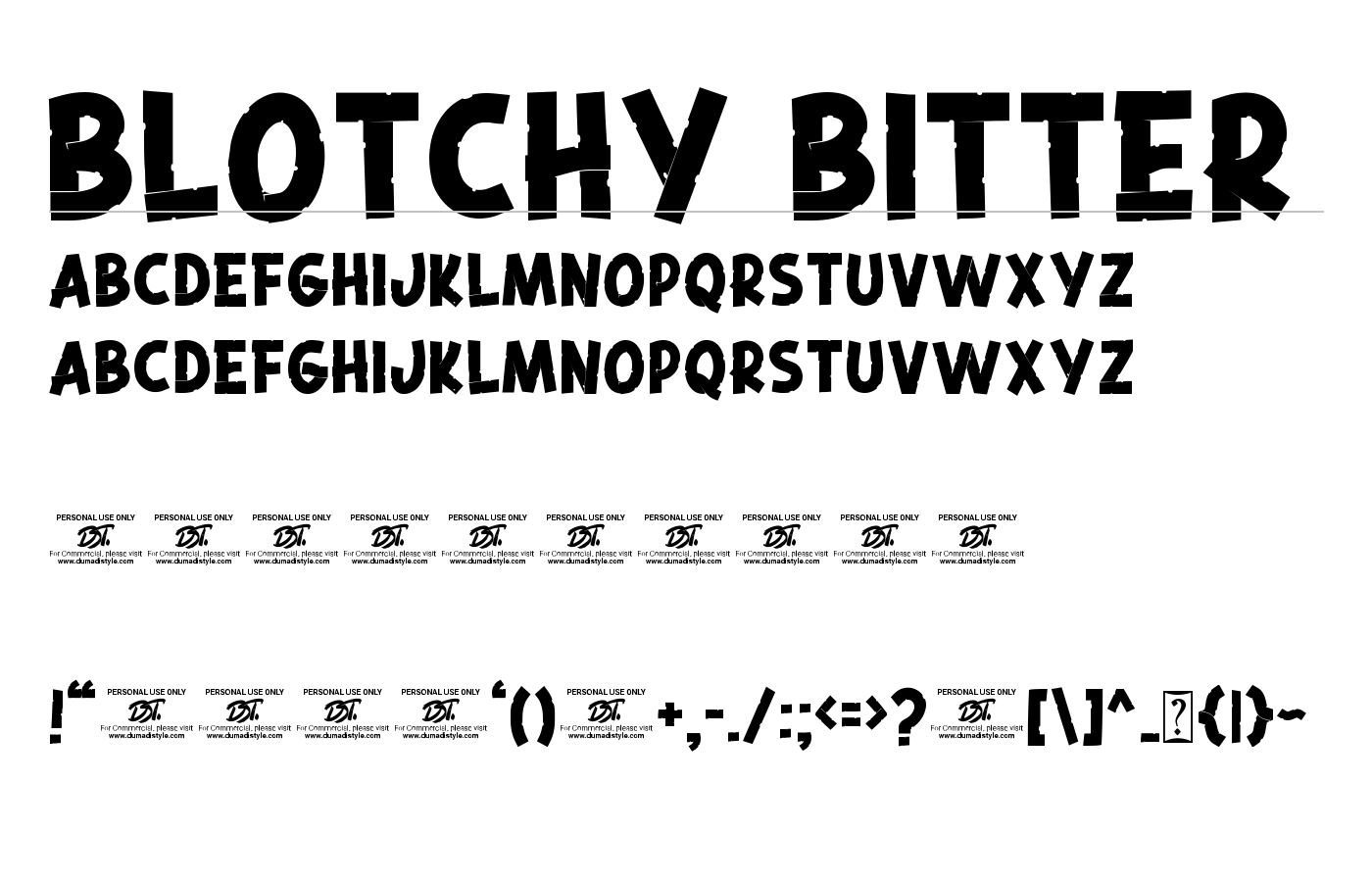
Blotchy Bitter is a bold, playful sans serif font with a hand-drawn, slightly rough texture that gives it an energetic and informal vibe. Its irregular shapes and chunky weight make it perfect for casual, fun designs like posters, children's books, or quirky branding projects. The font’s unique, slightly off-kilter style adds personality and charm, making it stand out in headlines and display use.
Blotchy Bitter Font
About Blotchy Bitter Font
| Font family | Blotchy Bitter Font |
| Designer | Toni Dzulham |